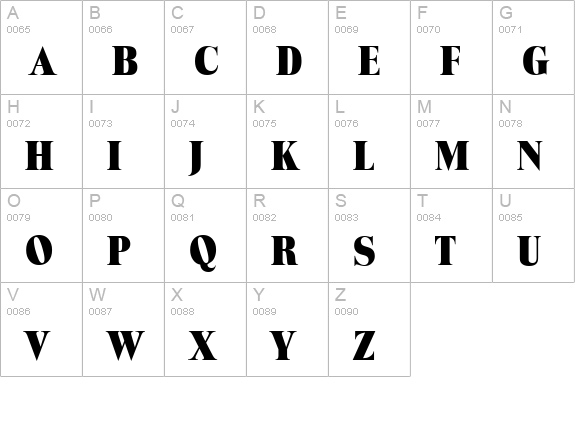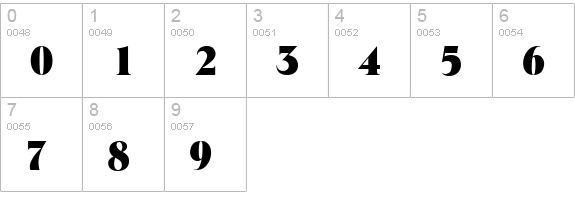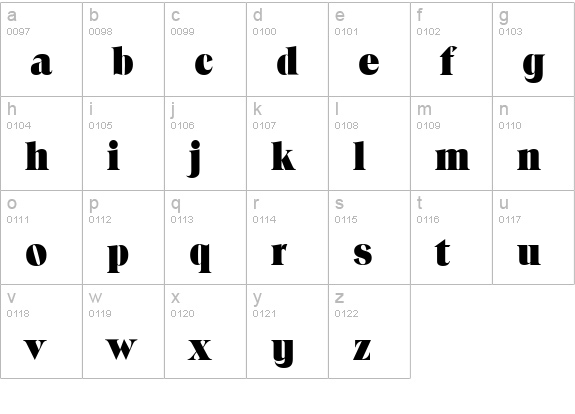
ToledoSerial-Heavy-Regular Font Details
ToledoSerial-Heavy-Regular is a heavy, high-impact variant in the ToledoSerial typeface family \xE2\x80\x94 well suited to high-impact headlines, posters, and display advertising.
ToledoSerial-Heavy-Regular is a bold and sturdy typeface that exudes strength and professionalism. With its thick strokes and clean lines, this font commands attention and makes a powerful statement in any design project. Ideal for headlines, posters, and branding materials, ToledoSerial-Heavy-Regular adds a touch of modern sophistication to your creations. Best of all, ToledoSerial-Heavy-Regular is available for free download at FontsMarket.com. This means you can easily access this versatile font and use it in your projects without any cost. Whether you're a designer looking to enhance your visual creations or a business owner seeking a distinctive font for your marketing materials, ToledoSerial-Heavy-Regular is the perfect choice. Download it today and elevate your designs with this exceptional typeface.